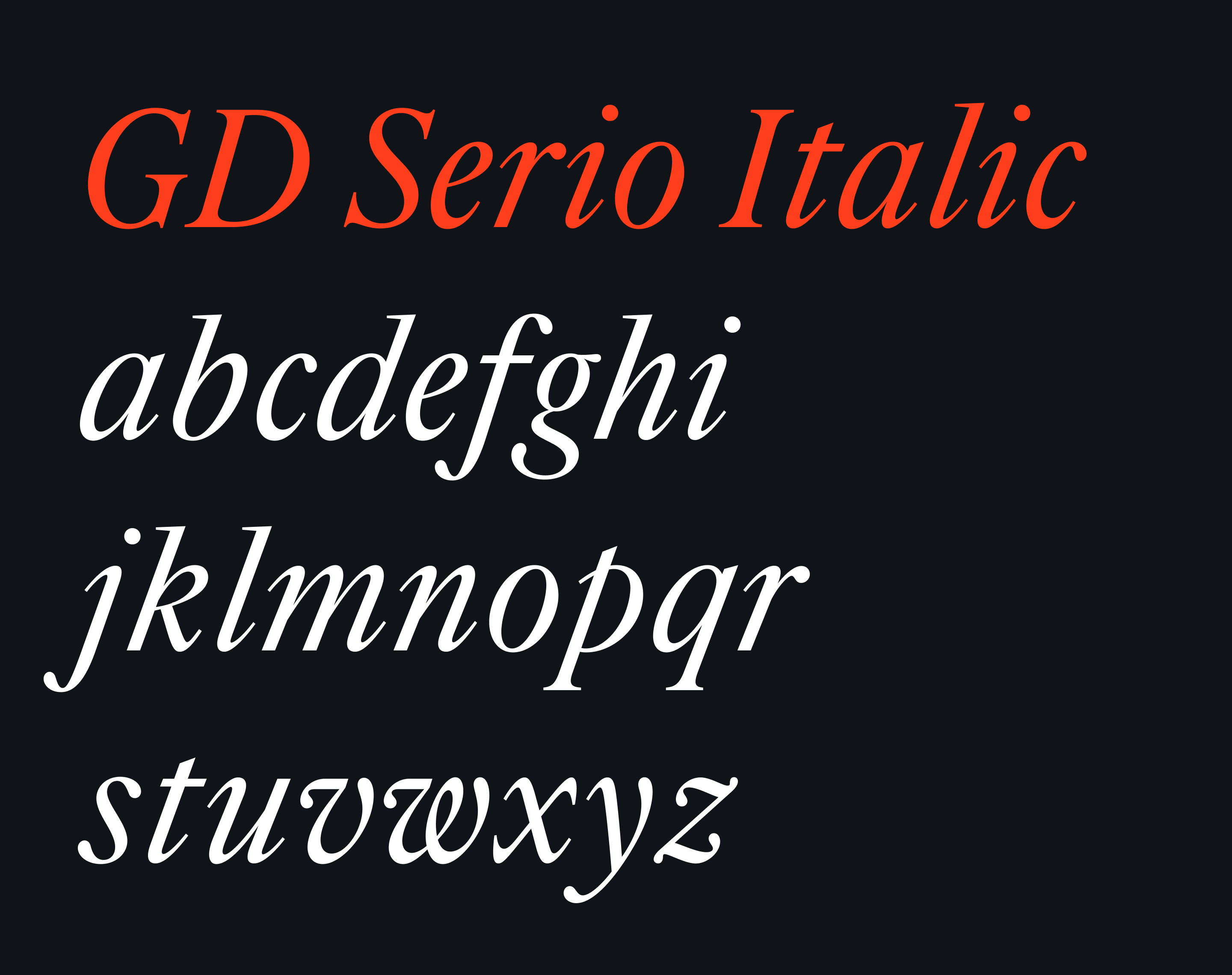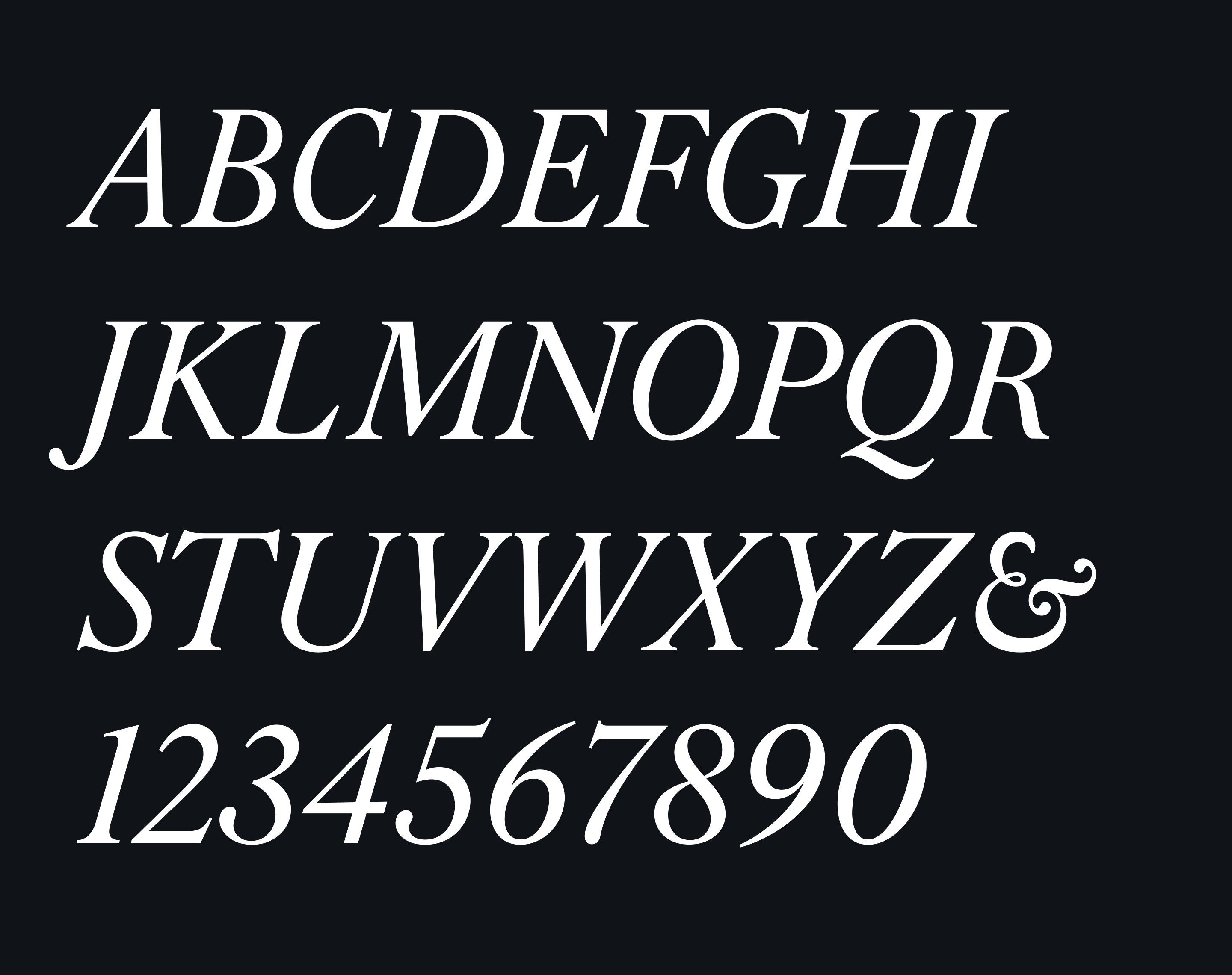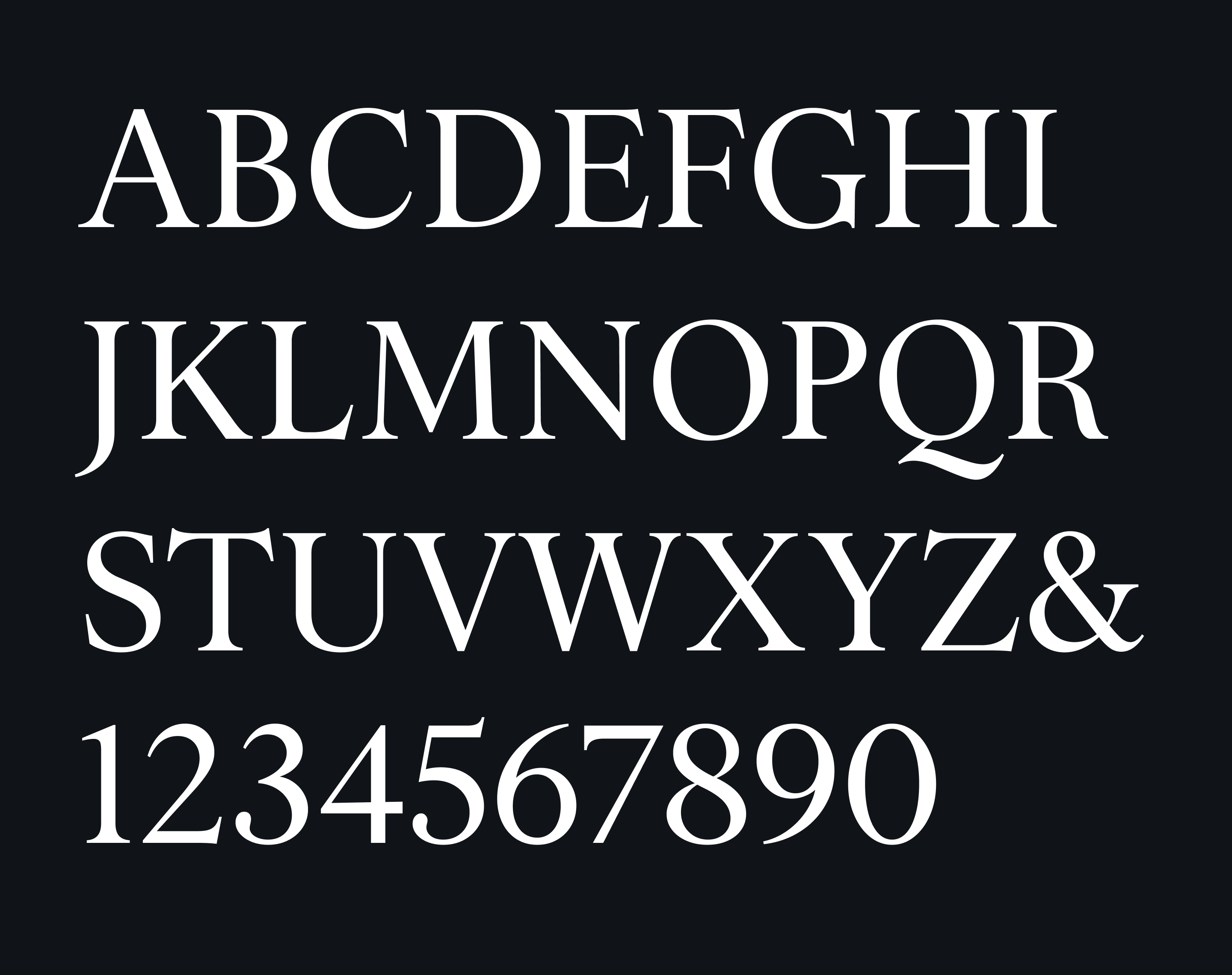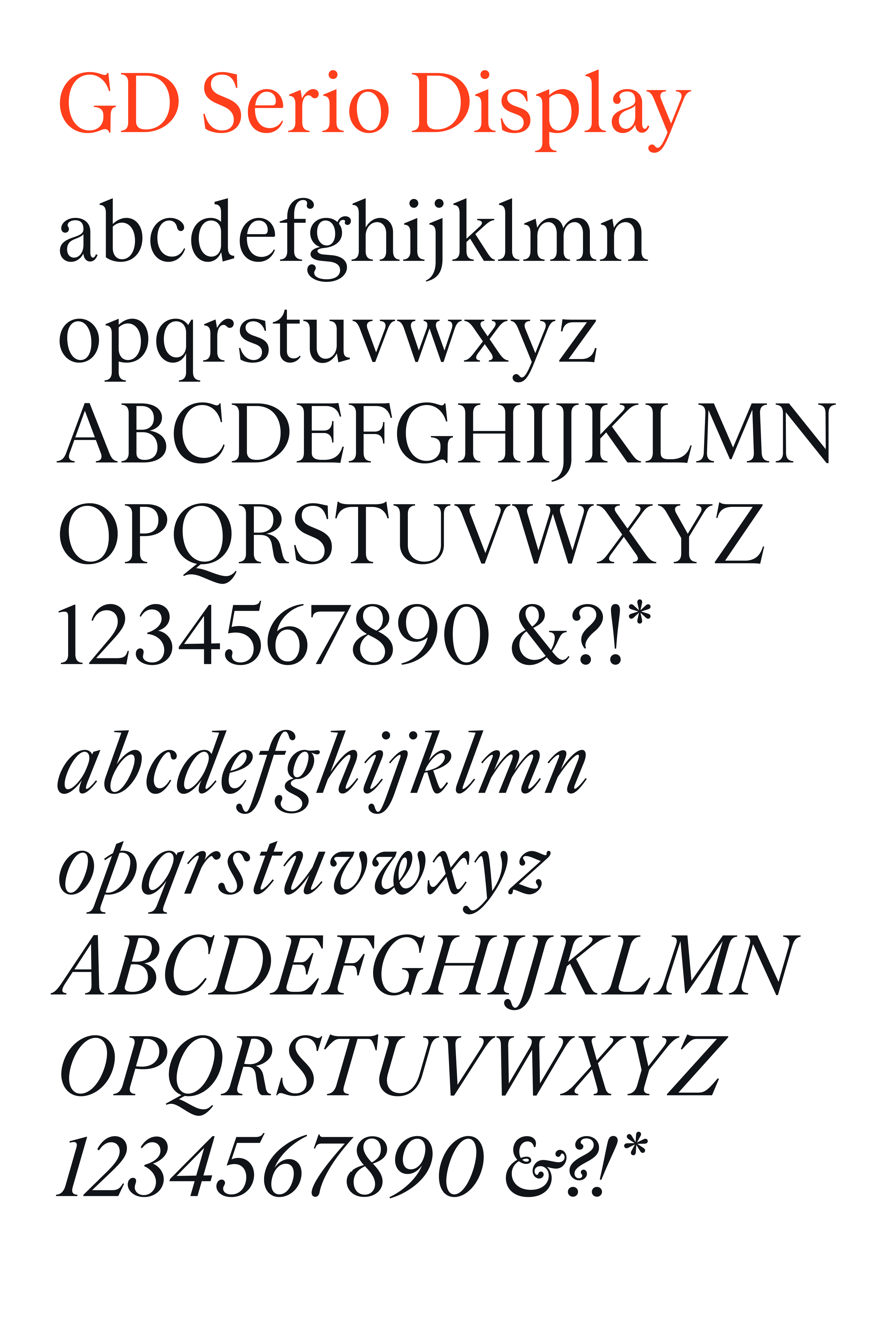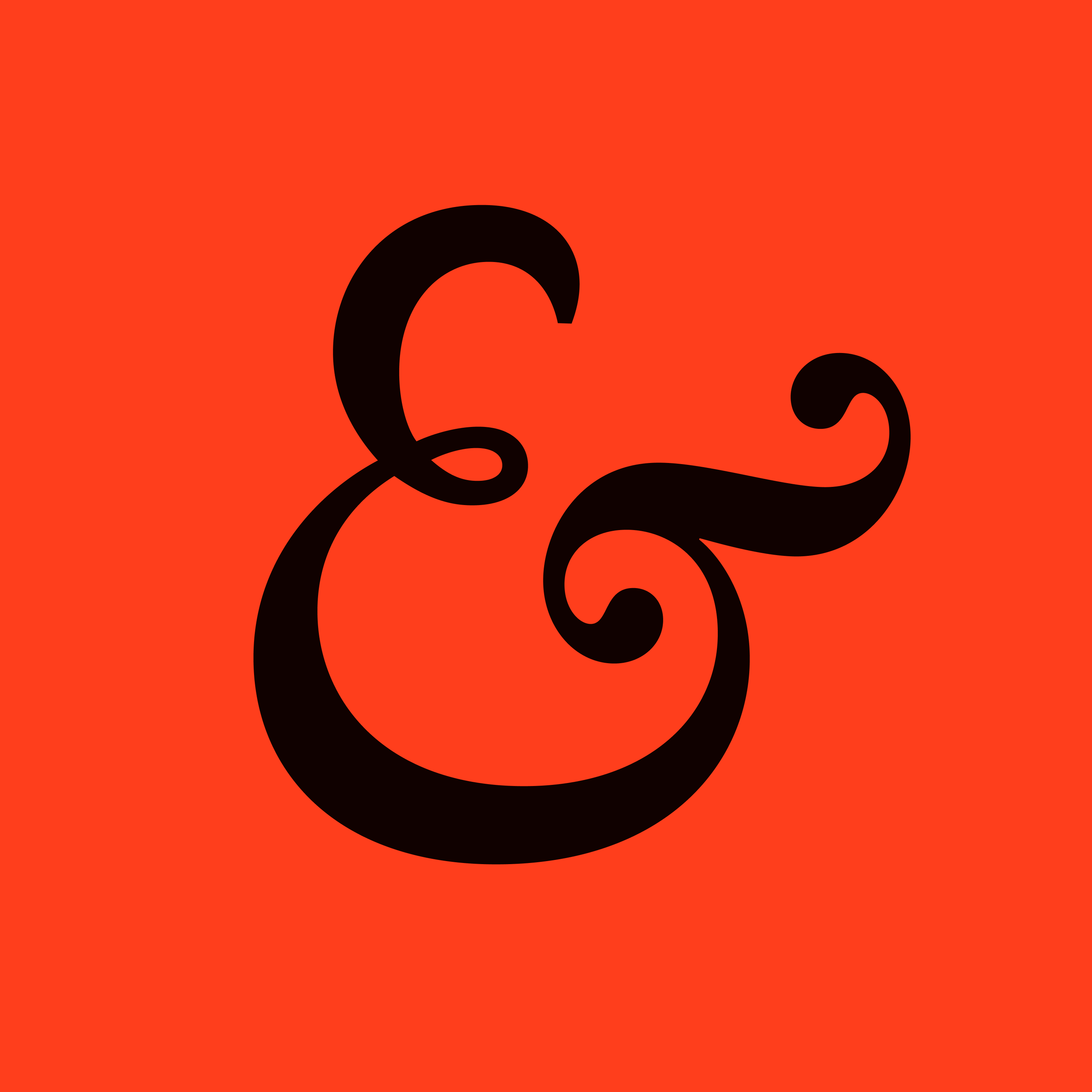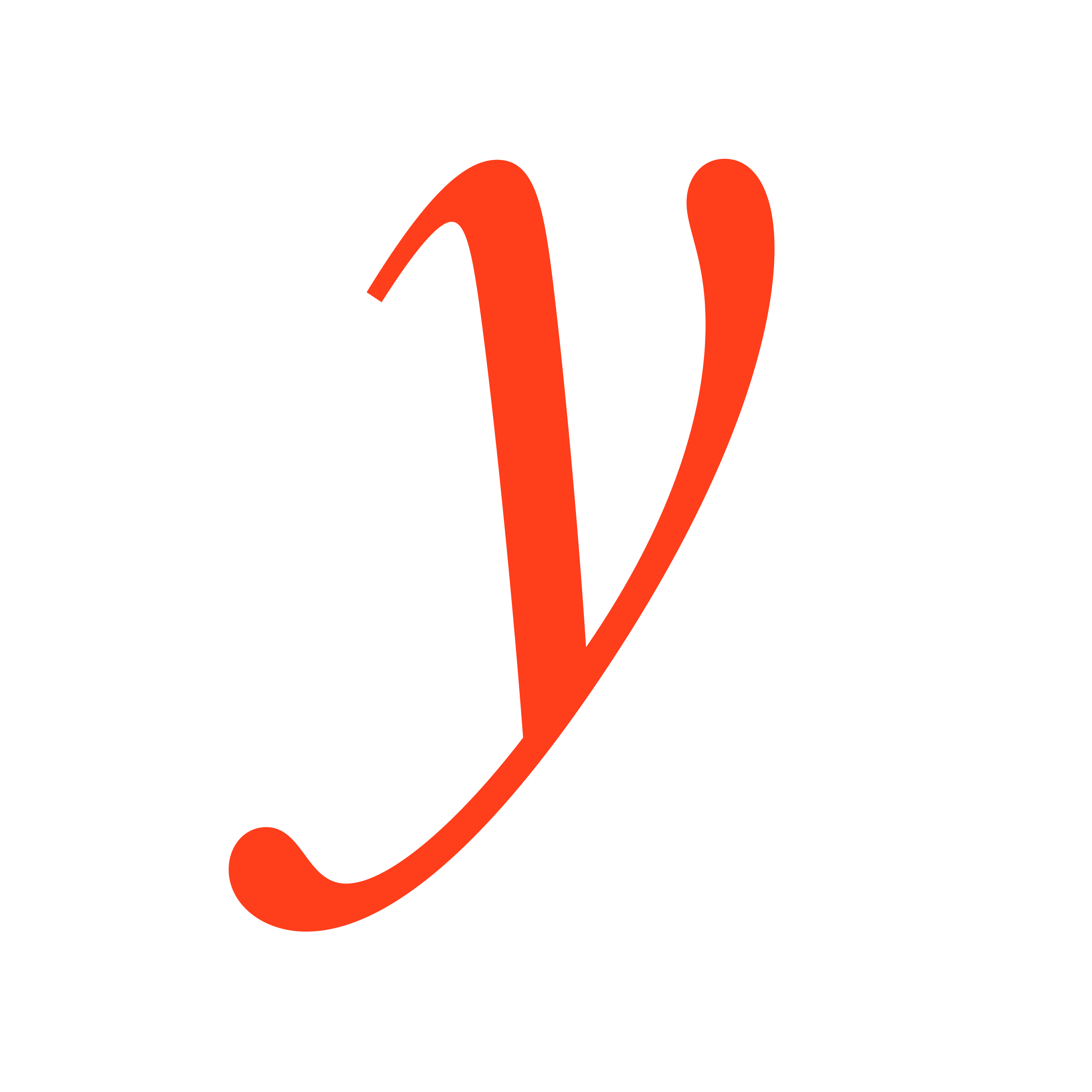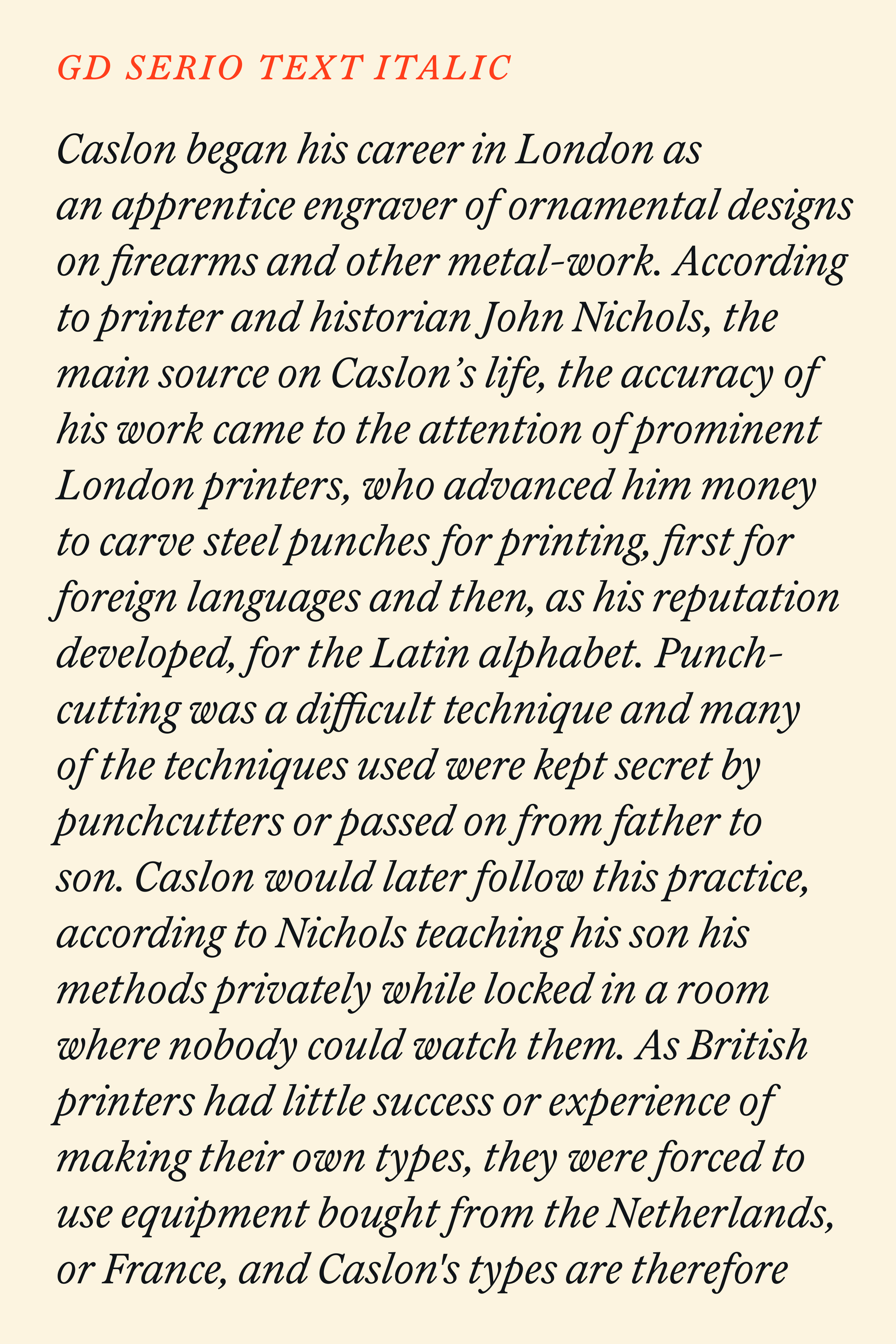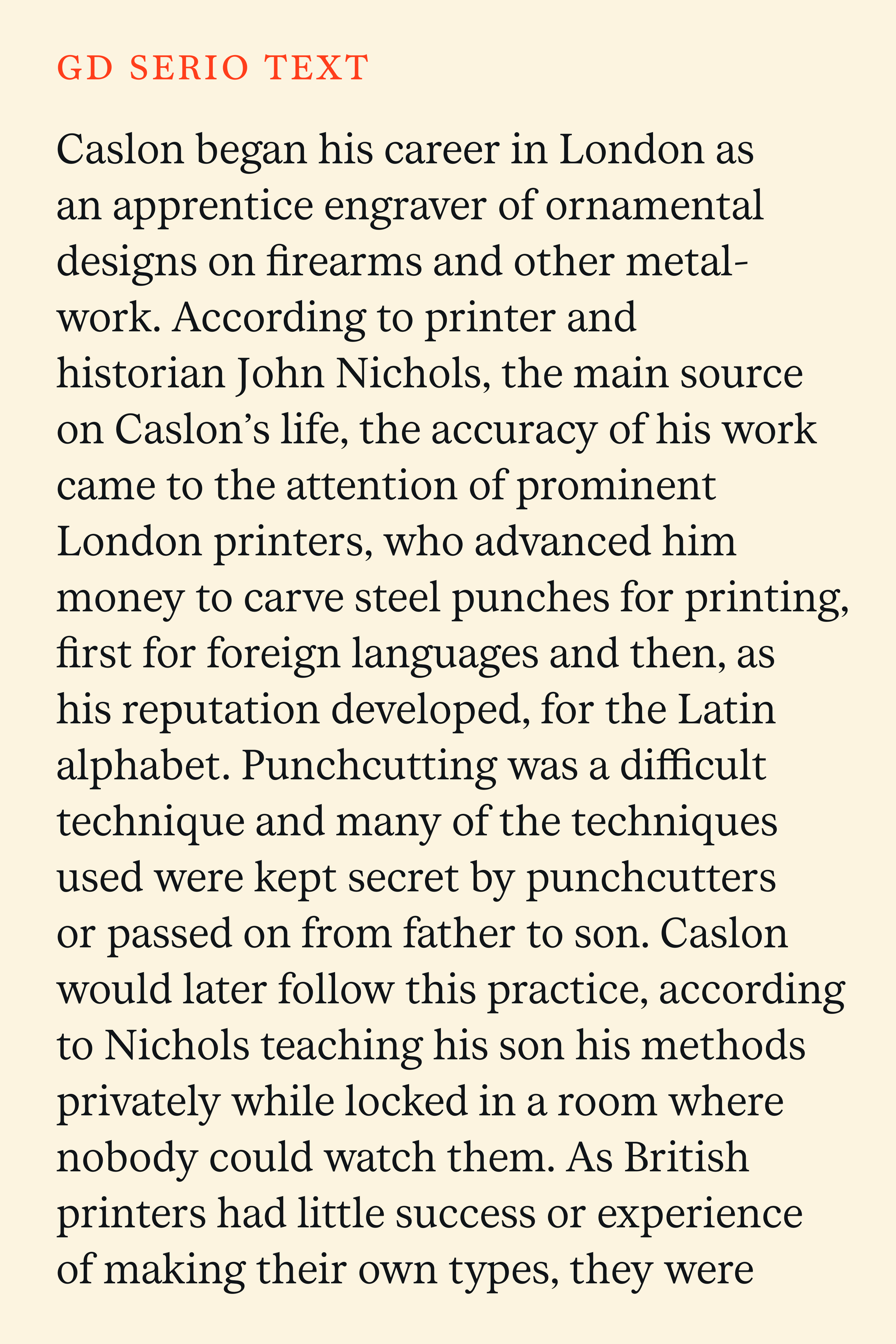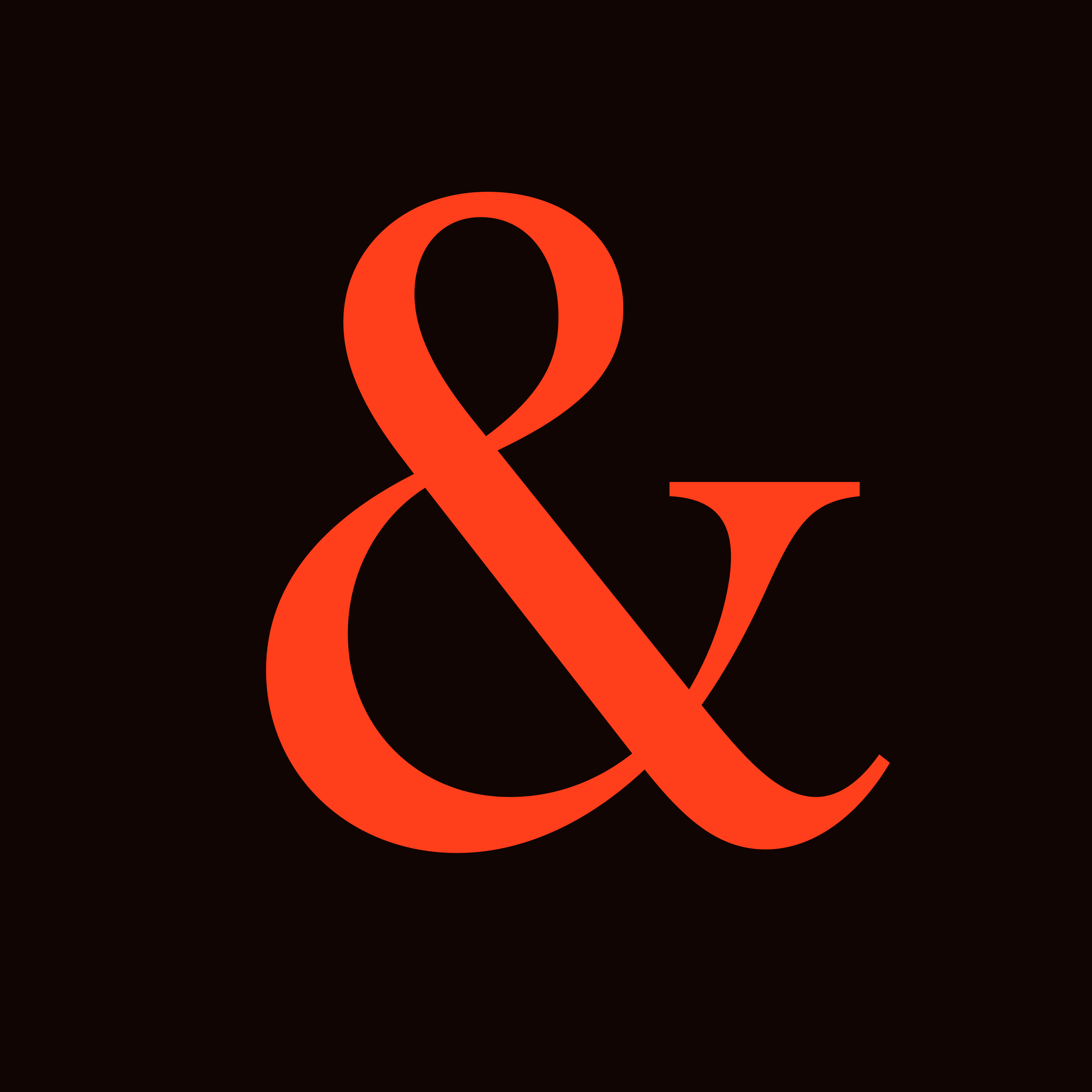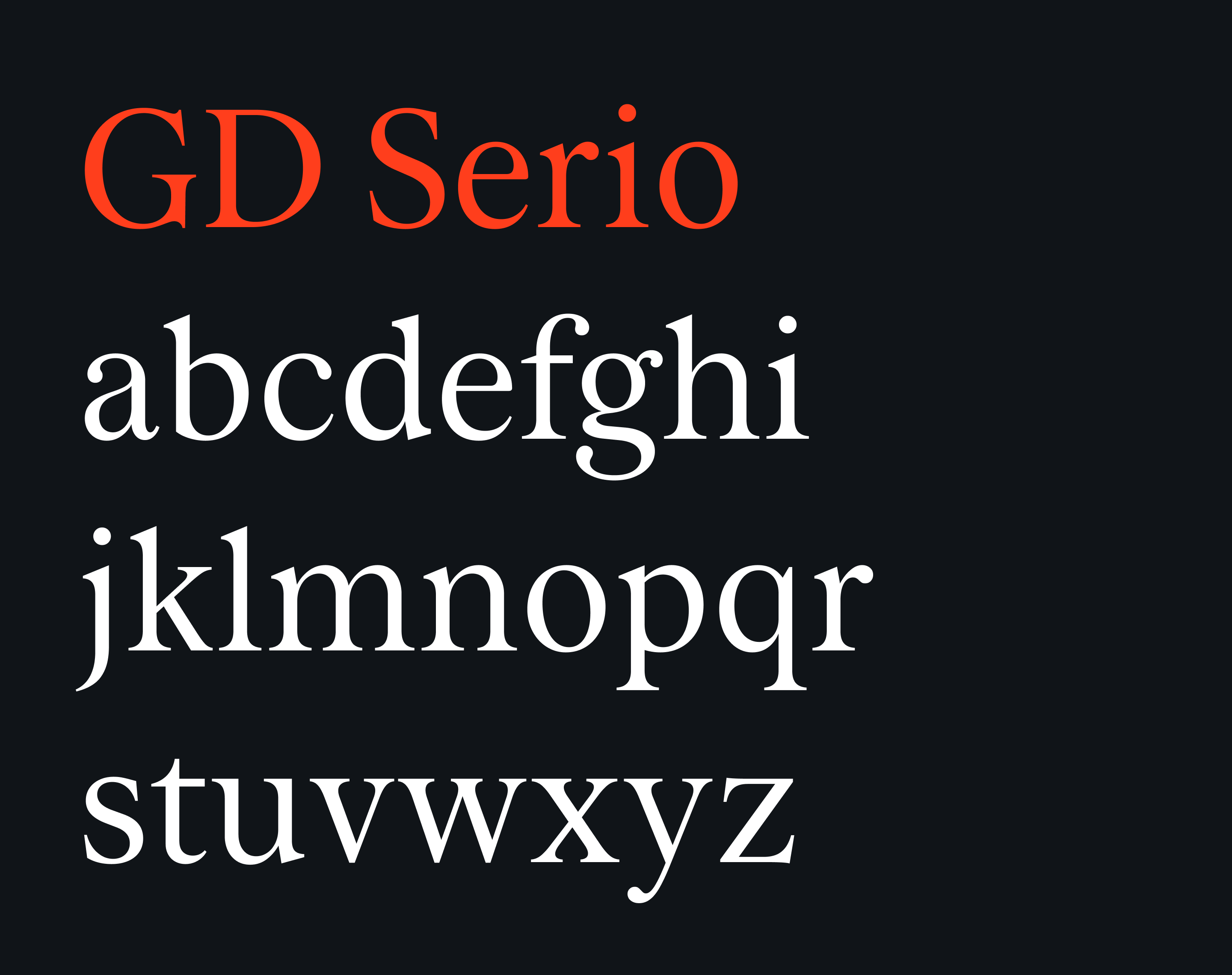
GD Serio
GD Serio is Gärde Design’s take on a classic serif typeface in the vein of Caslon and Baskerville.
I was tasked with finishing the Regular, which was mostly done and already had both a Display and Text cut, by the time I joined the project.
The italics were designed by me. As you would expect given the style, many characters are completely different from their upright counterparts, and some of them have swash variants for when you want to look fancy.